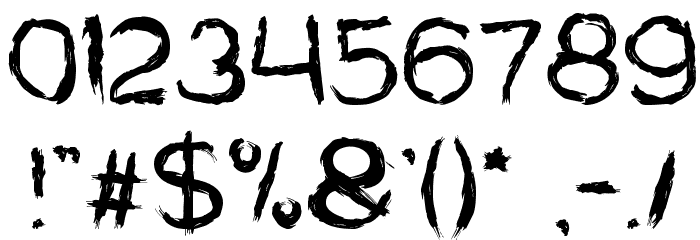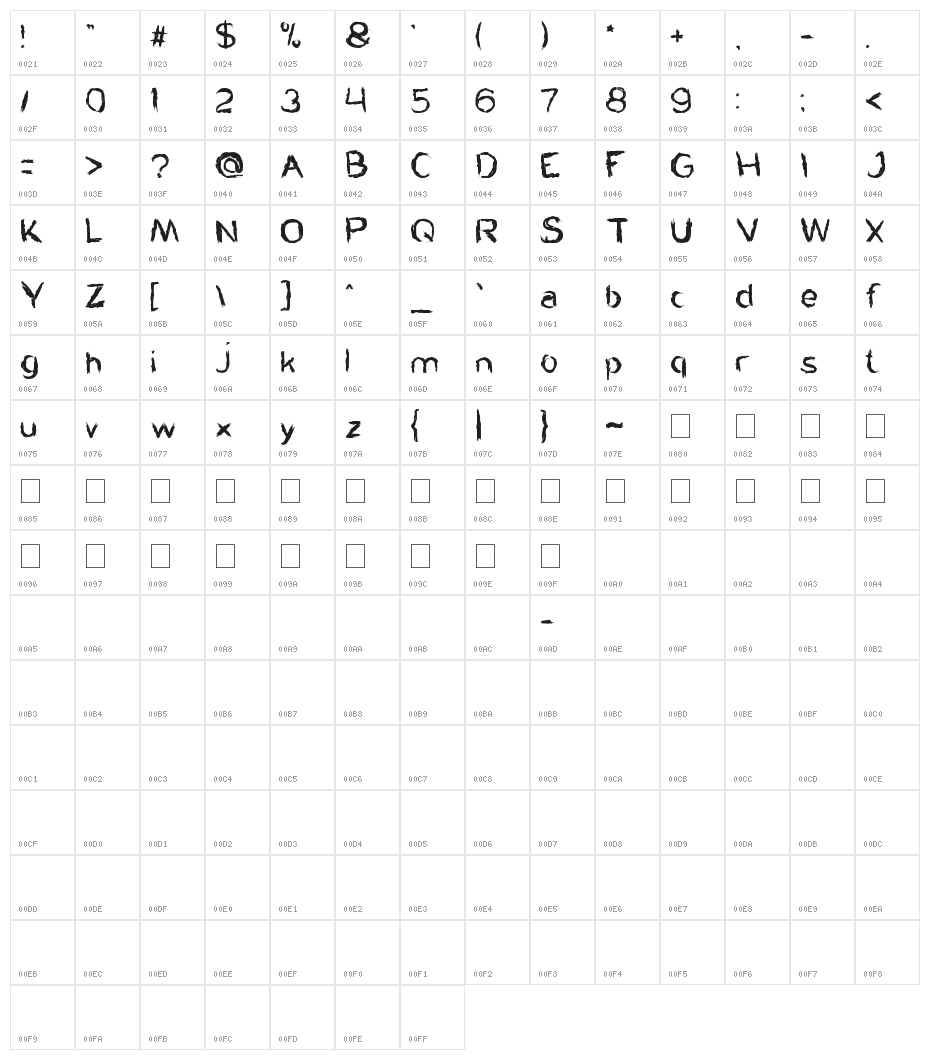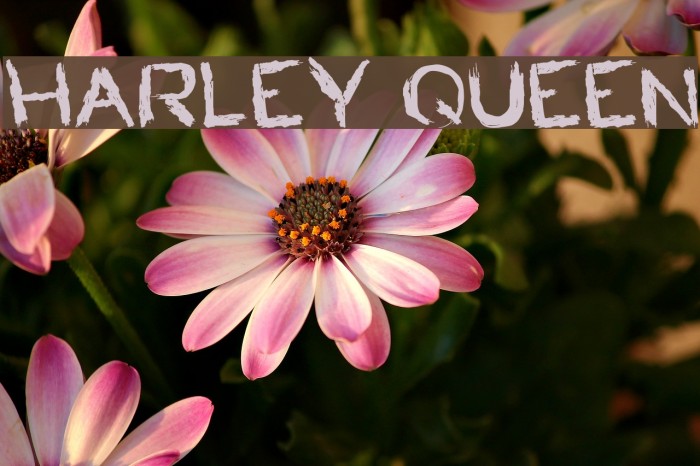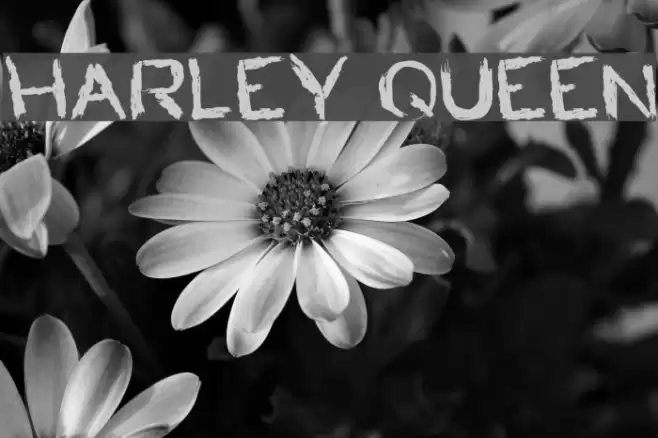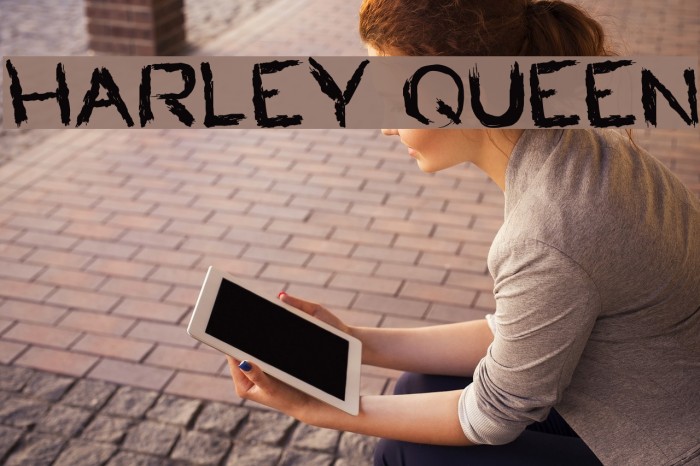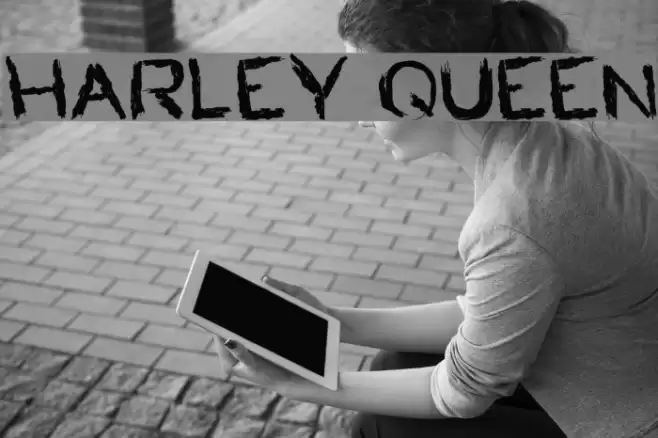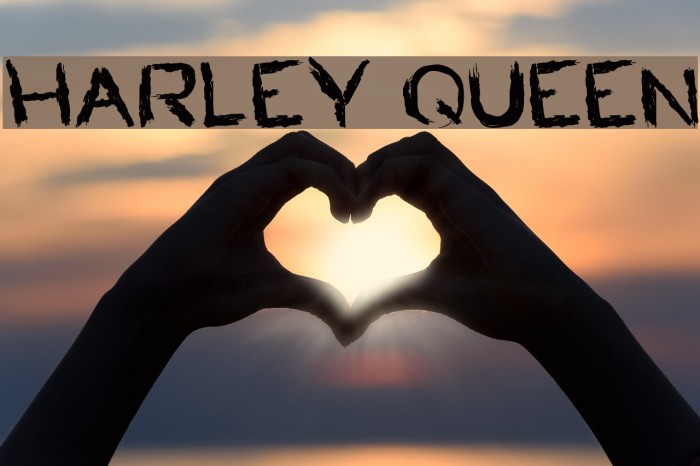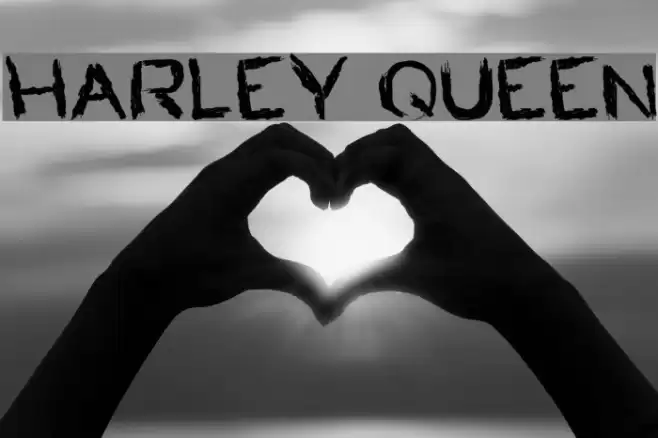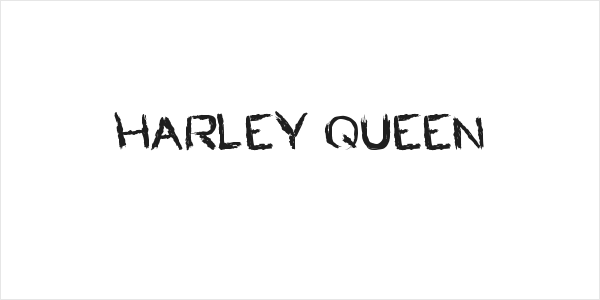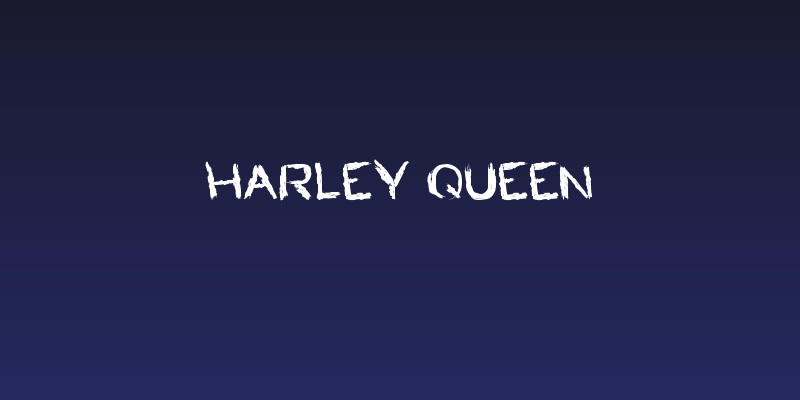
HARLEY QUEEN Font
HARLEY QUEEN Description
This font features a bold and rugged design, characterized by its brush-like strokes that give it a raw and edgy appearance. The letters are uneven and irregular, adding a sense of movement and dynamism to the text. The uppercase and lowercase letters maintain a consistent style, with jagged edges and a hand-drawn feel. The numbers and special characters follow the same aesthetic, ensuring a cohesive look across all text elements. This font's unique style makes it stand out, perfect for projects that require a bold and artistic touch.